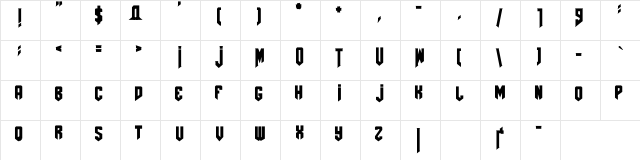
AmazDooMLeft2 Regular Font Preview
AmazDooMLeft2 Regular
AmazDooMLeft2 Regular Font Details
Design Context for AmazDooMLeft2 Typeface
AmazDooMLeft2 is a composed and adaptable typeface that performs quietly and consistently across a wide range of design contexts.